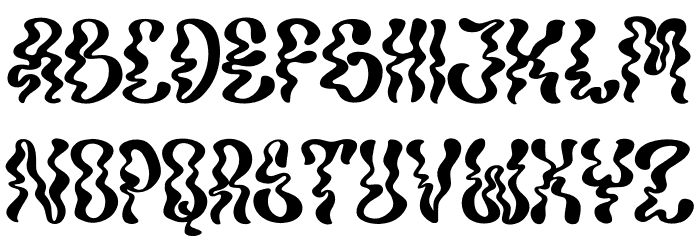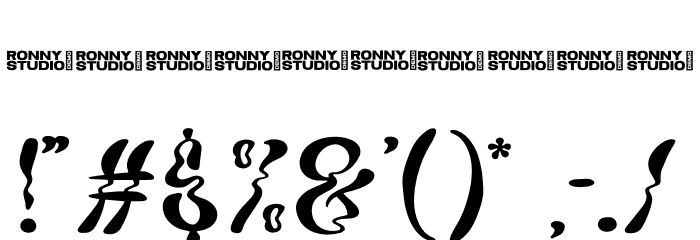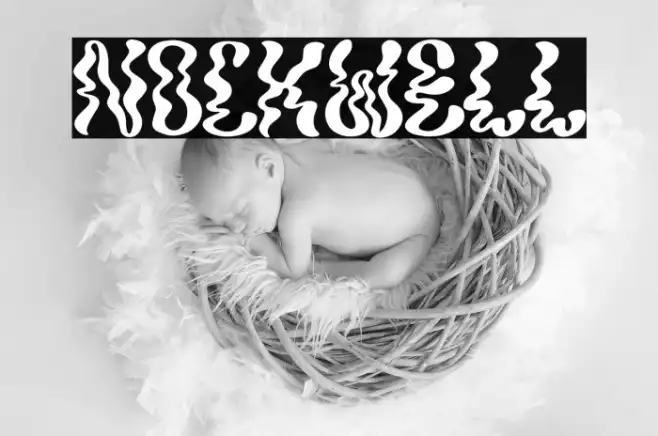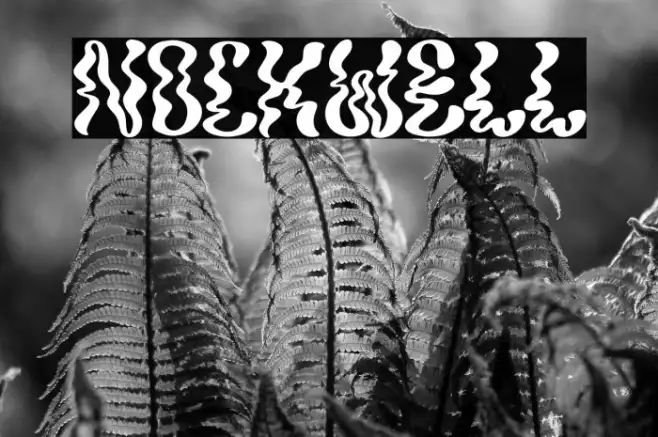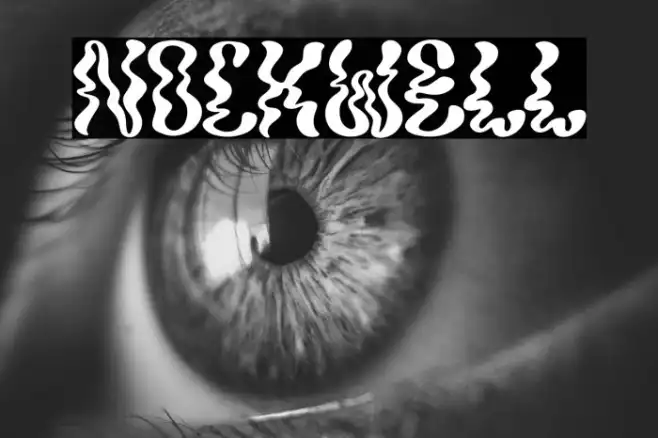
Nockwell Font
This font features a bold and wavy design, creating a dynamic and eye-catching appearance. The letters are characterized by their fluid, undulating forms, which give the impression of movement and energy. The unique style is reminiscent of psychedelic or retro aesthetics, making it stand out in any design. The uppercase and lowercase letters maintain a consistent style, with each character exhibiting a playful yet structured form. The numbers and special characters follow the same design principles, ensuring a cohesive look across all text elements.
A bold, wavy font with a dynamic, psychedelic style.
- Font: Nockwell
- Proposed Projects: Ideal for music festival posters, retro-themed branding, or any project requiring a bold, artistic touch.
- Overall Style: Psychedelic, Retro
- Use Case: Headlines, Posters, Branding